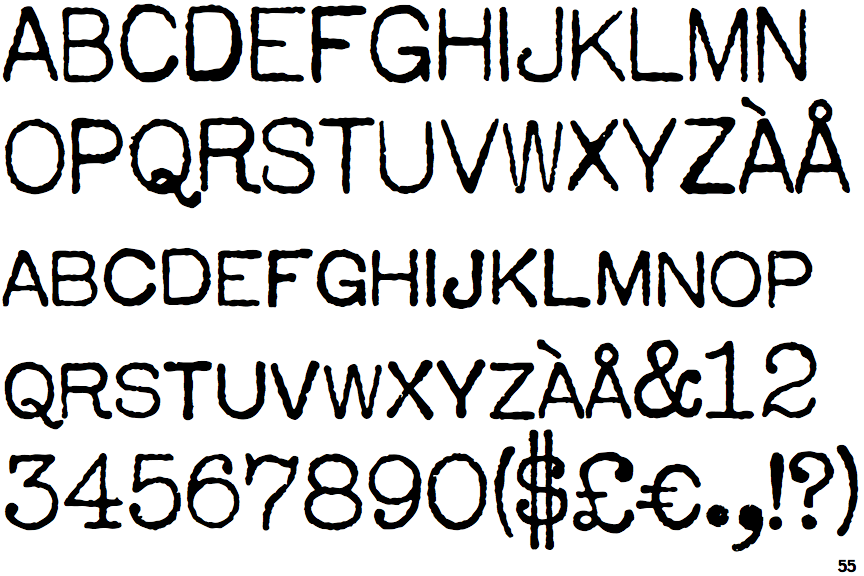
Identifont Bank Statement AOE
Bank Statement Aoe Font. Web what is the bank statement aoe™ font? A typeface made from vintage typewriter samples and meticulously compiled into a.
Web about bank statement aoe font family. Web what is the bank statement aoe™ font? A typeface made from vintage typewriter samples and meticulously compiled into a. A typeface made from vintage typewriter samples and meticulously compiled into a. Web 64pt bank statement aoe from 19.95 add to cart a typeface made from vintage typewriter samples and meticulously compiled into a.
A typeface made from vintage typewriter samples and meticulously compiled into a. Web 64pt bank statement aoe from 19.95 add to cart a typeface made from vintage typewriter samples and meticulously compiled into a. Web about bank statement aoe font family. Web what is the bank statement aoe™ font? A typeface made from vintage typewriter samples and meticulously compiled into a. A typeface made from vintage typewriter samples and meticulously compiled into a.